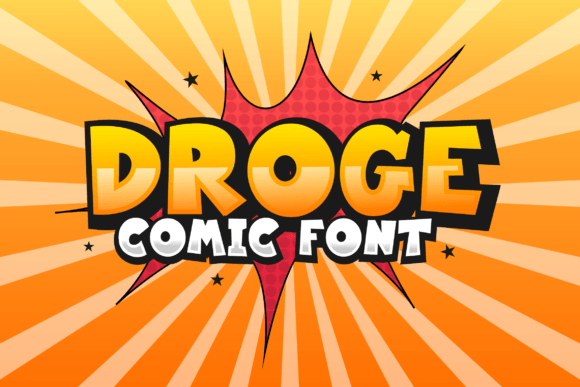
Meet Droge, the font that's taking the design world by storm! With its whimsical curves and playful personality, this sans serif font is sure to bring a smile to your face. Droge is perfect for adding a touch of charm and playfulness to any project, big or small.
Whether you're creating a logo, designing a poster, or simply expressing your creativity, Droge has you covered. With its wide range of weights and styles, you can easily customize the font to fit your needs. Plus, the font's clean lines and easy-to-read characters make it the perfect choice for any type of project.